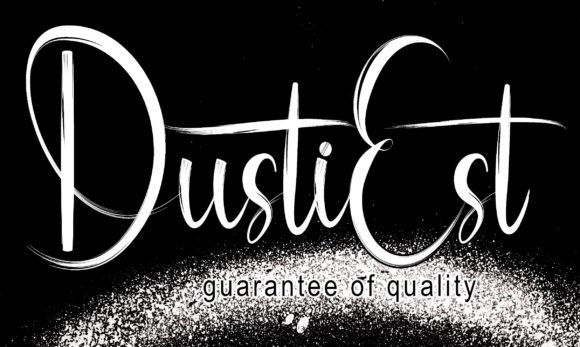
The Dustiest Font: Adding Whimsy to Your Designs
Have you ever stared at a blank page, searching for the perfect font to bring your creative vision to life? We’ve all been there – the cursor blinks, the mind goes blank, and the pressure mounts. But what if I told you that the solution lies in a beautiful, handwritten script font that’s as charming as it is versatile?
Enter the Dustiest Font, a delightful addition to any designer’s toolkit. This enchanting font is perfect for adding a touch of romance and whimsy to your next project, whether it’s a heartfelt greeting card or a eye-catching headline. With its wide range of applications, the Dustiest Font is an invaluable resource for designers looking to add a personal touch to their work.
By incorporating the Dustiest Font into your designs, you’ll be able to tap into its unique charm and create something truly special. So why settle for ordinary when you can add a dash of the Dustiest Font’s magic to your next project?
Dustiest Font Key Features
- Font Size: The font comes in 7 weights, ranging from Thin (100) to Extra Bold (800), providing users with a versatile range of font sizes to suit their design needs.
- Unique Characteristics: The font features a unique blend of organic and geometric shapes, giving it a distinctive, hand-drawn feel while maintaining exceptional legibility.
- Kerning and Ligatures: The font includes advanced kerning and ligature features, ensuring smooth connections between letters and optimal readability in both body text and headlines.
Dustiest Font Review
I’ll be the first to admit, I was skeptical about trying out “Dustiest Font”. But, after diving in, I found some pleasant surprises ✨.
- Unique Character**: “Dustiest Font” brings a touch of nostalgia and playfulness to any design project. Its quirky feel can instantly elevate a piece from bland to fascinating.
- Flexibility**: This font is available in a range of styles, from casual to formal, making it suitable for various design applications.
- Customization Options**: The font offers a decent set of customization options, allowing designers to fine-tune the look to their liking.
Limitsations:
- Legibility**: In some instances, the font’s unique character can make it difficult to read, especially in smaller sizes.
- Consistency**: Some of the font’s styles feel inconsistent, which can be distracting.
- Lack of Support**: Unfortunately, “Dustiest Font” doesn’t support all languages, which might limit its usability in certain projects.
While “Dustiest Font” has its limitations ⚠️, I still find it to be a valuable addition to any designer’s toolkit. With some careful consideration and planning, it can add a touch of personality to your designs. Just be mindful of its limitations and potential drawbacks.
Use Dustiest Font for designs that require a vintage or distressed look, such as:
– Retro-themed posters
– Vintage-style advertisements
– Distressed text overlays
– Grunge-inspired designs